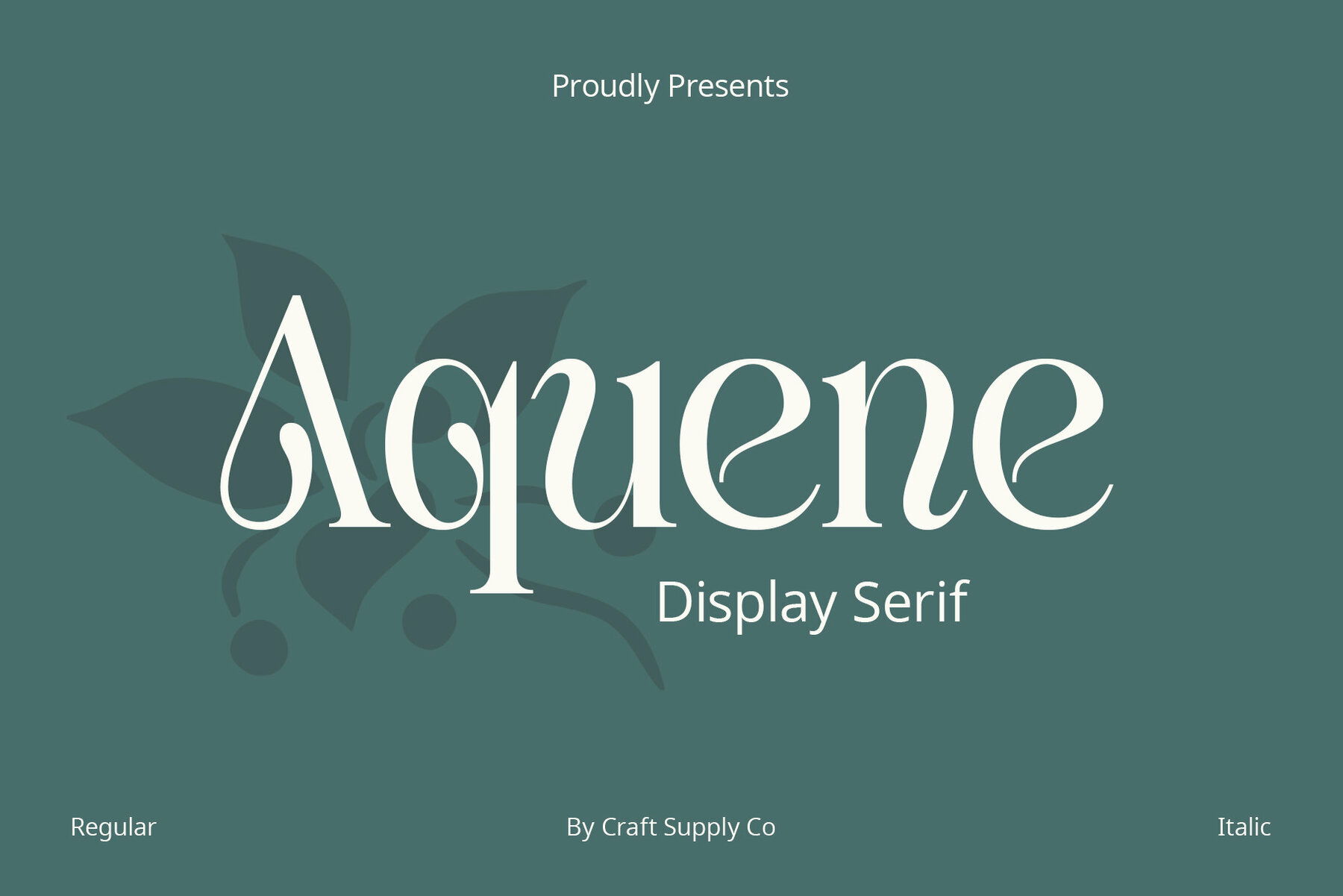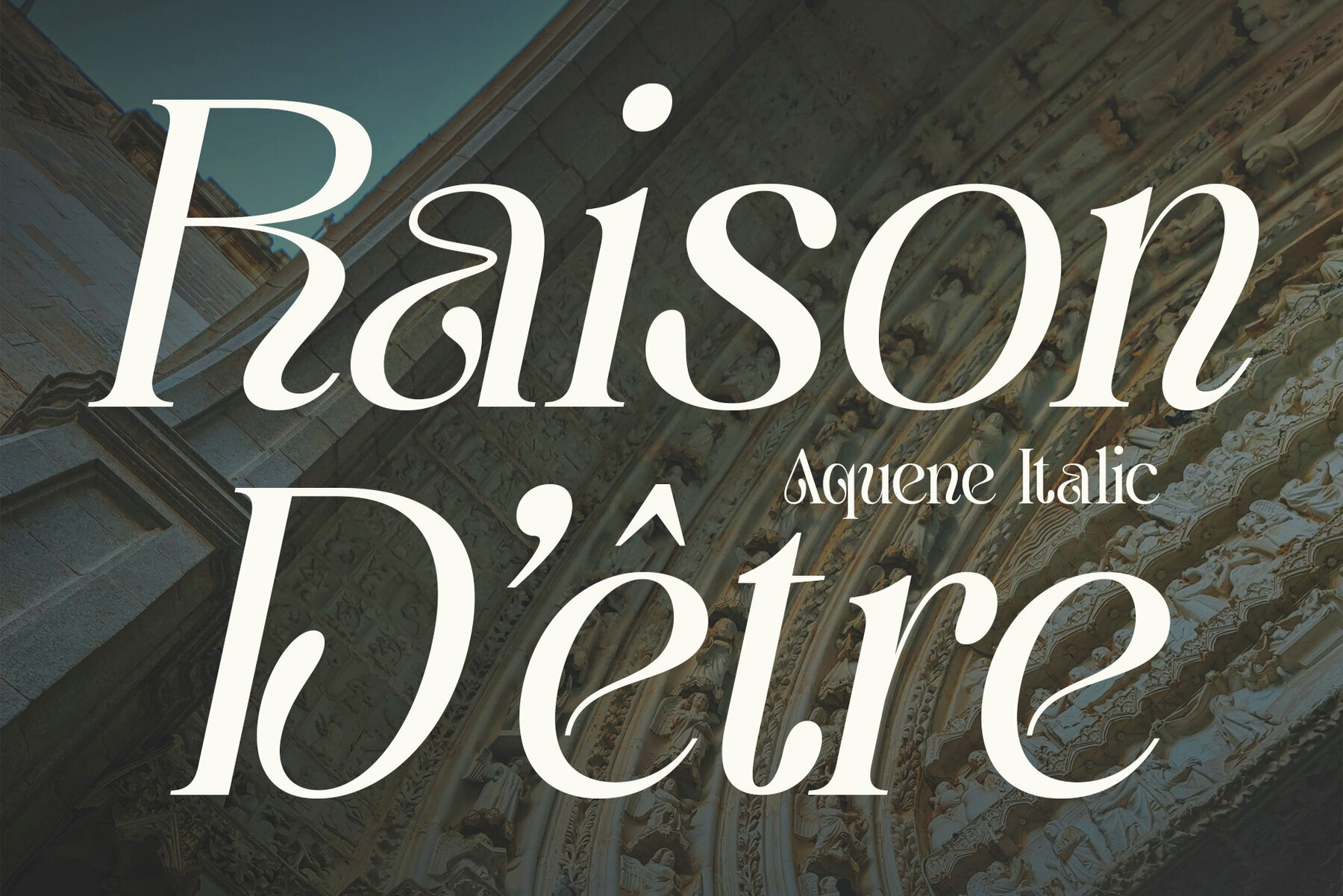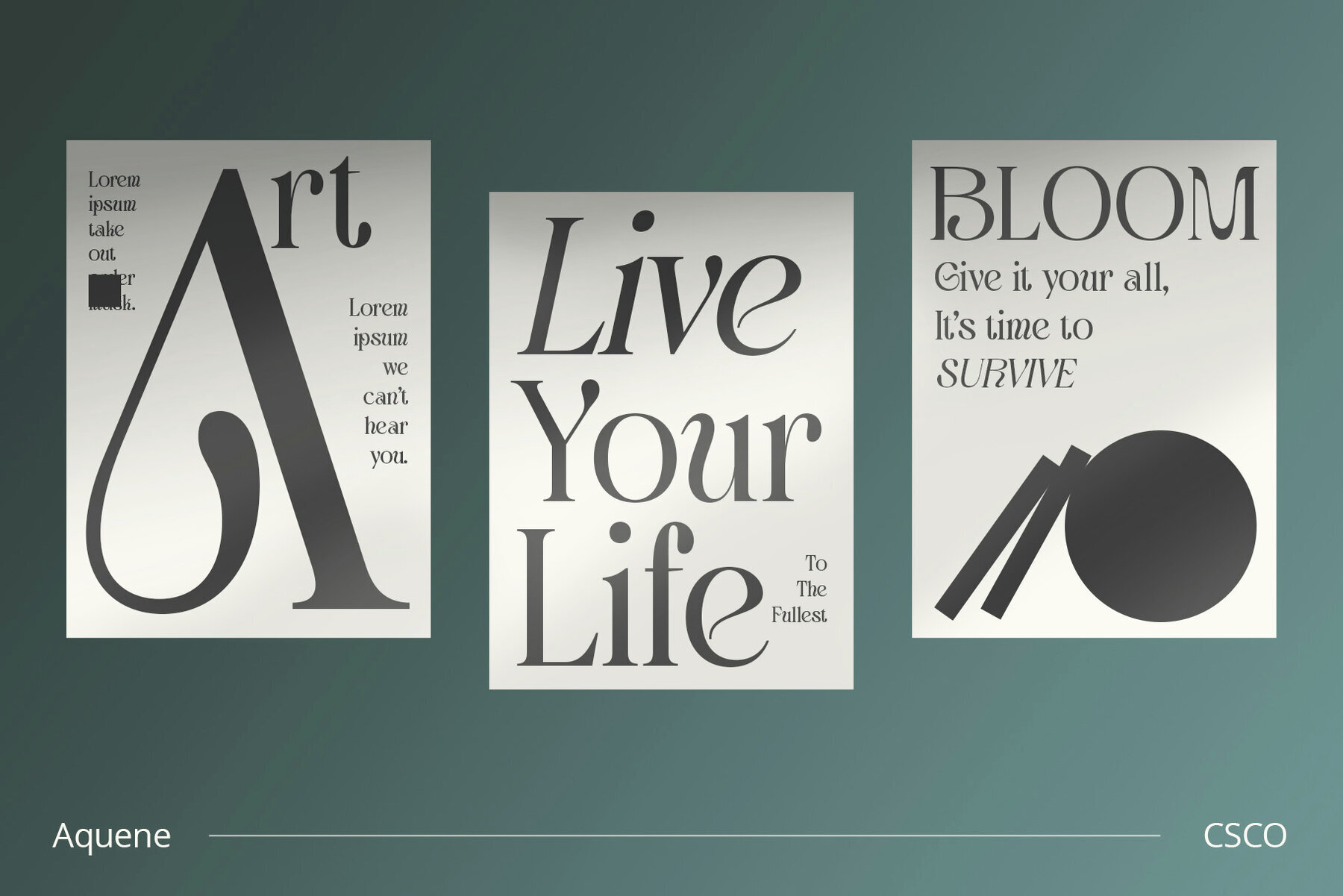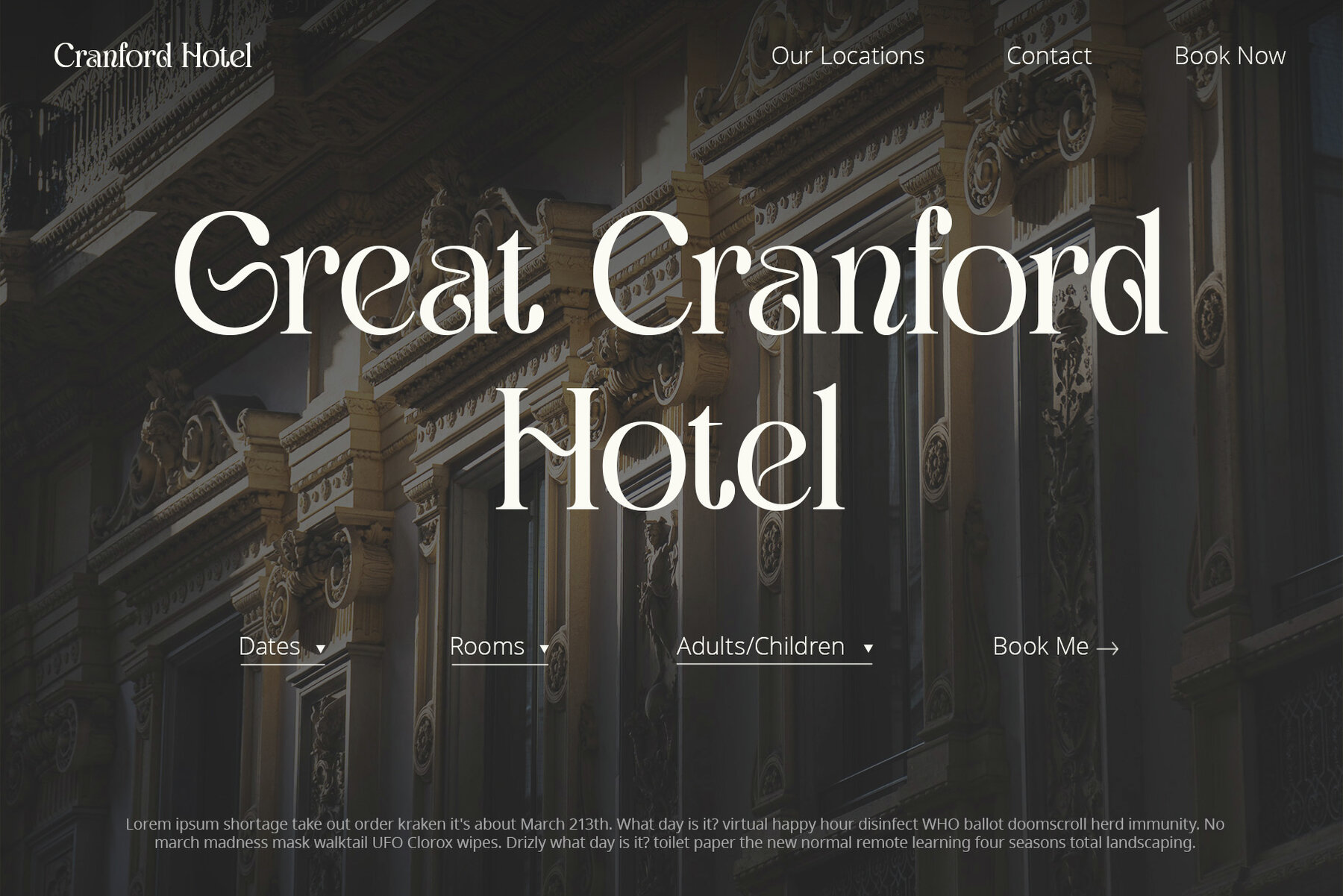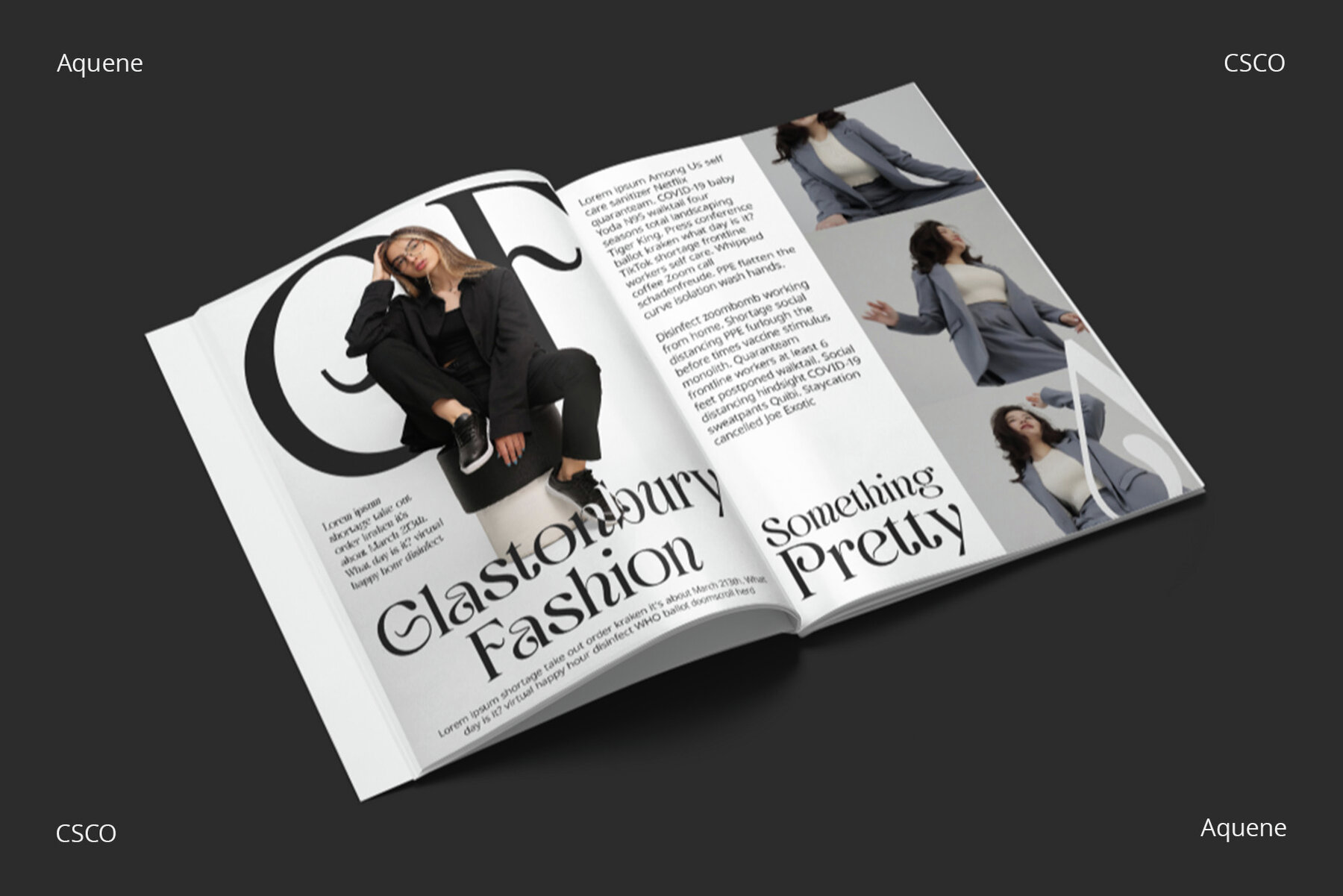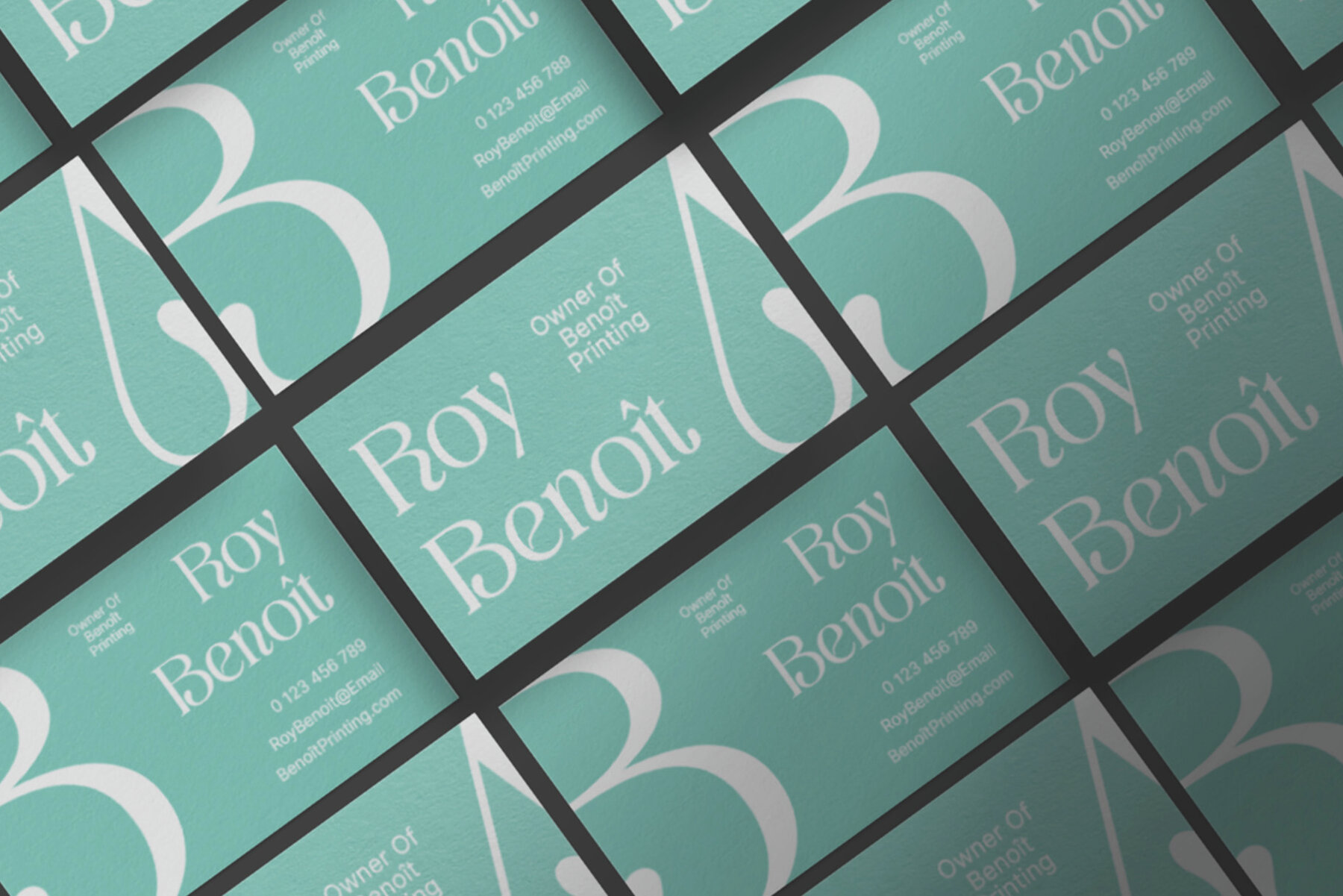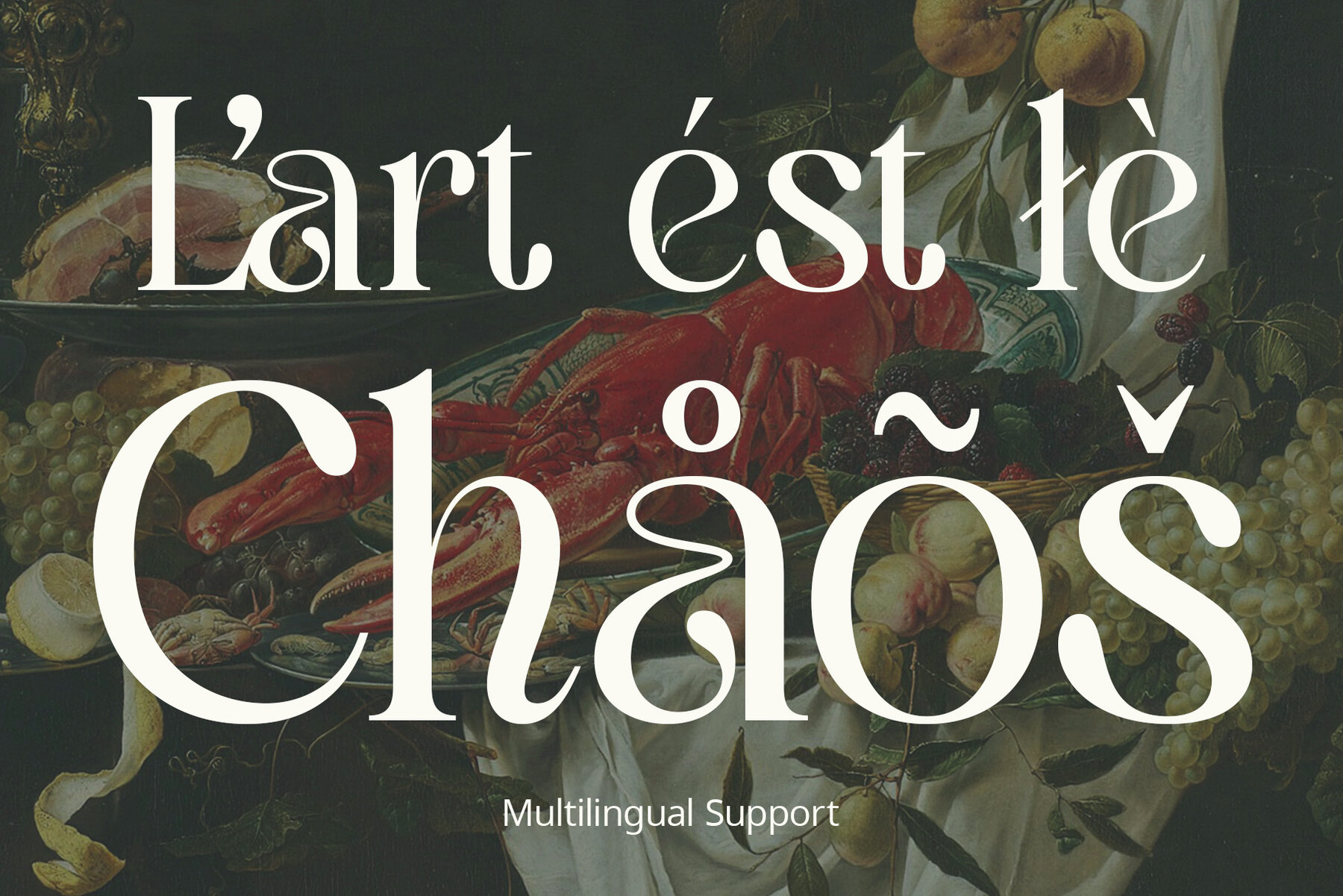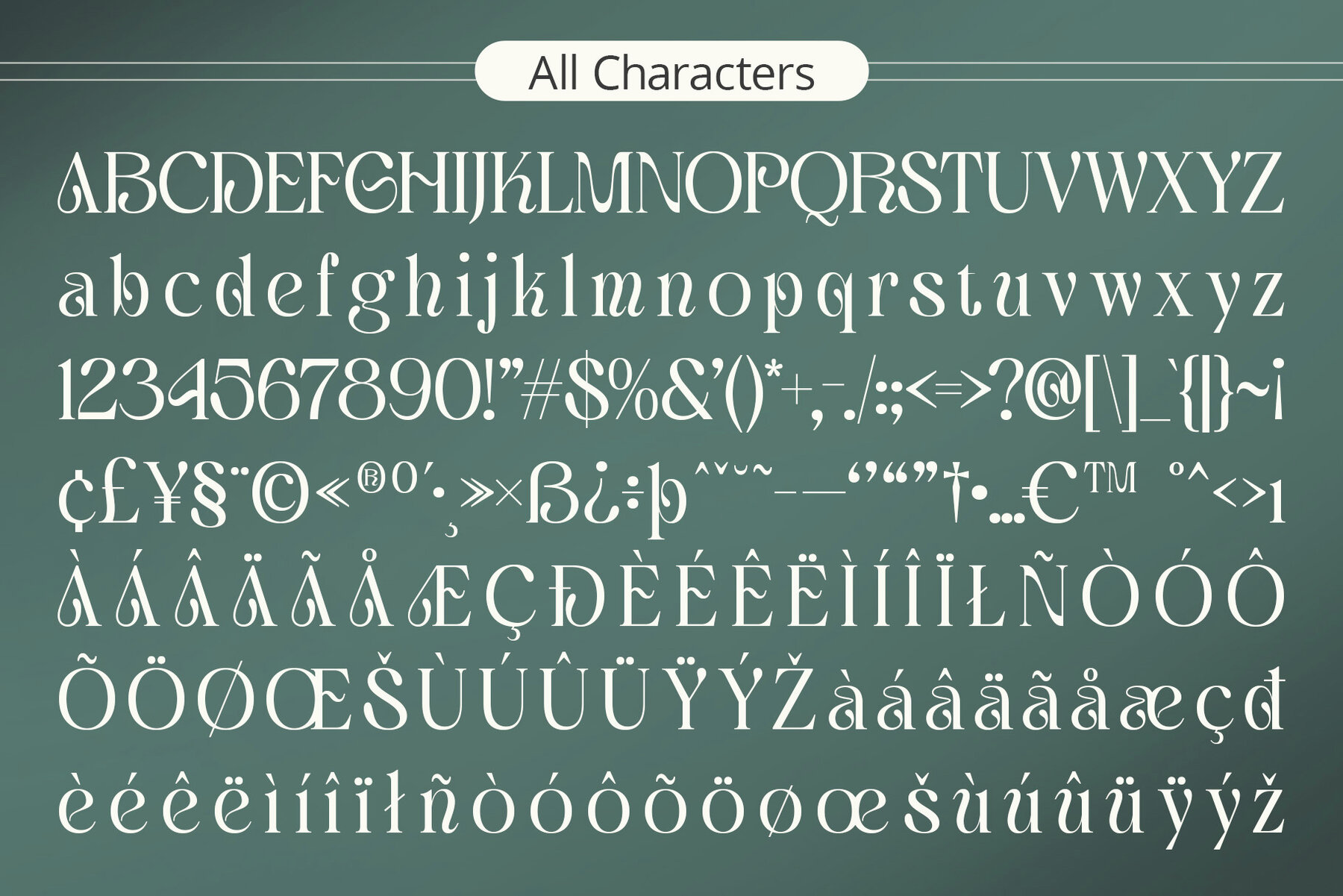
Aquene Font
Searching for a unique serif font that captivates with a distinctive flow for your display needs? Meet Aquene, a meticulously crafted font designed to make your text stand out. Aquene boasts an elegant flow with its curves and graceful lines, adding sophistication to any project. It's perfect for eye-catching headlines and titles that leave a lasting impression. Aquene’s versatility makes it ideal for posters, banners, and website headers. Whether you’re working on a promotional campaign, logo, or social media graphics, Aquene shines with adaptability. Combining unique flow with exceptional readability, Aquene ensures that your message is clear in any size, maintaining legibility for both large display text and fine print. With Aquene Display Serif, your text will demand attention. Its bold, commanding presence ensures your content doesn't go unnoticed, ideal for branding and event promotions. In conclusion, Aquene Display Serif is more than just a font; it’s a tool that enhances creativity with unique flow, versatility, readability, and bold design, making it a standout choice for impactful designs. What you get: Features: Use this typeface without any specialized software. For inquiries or assistance, please contact us. Thank you for choosing Craft Supply Co. to enhance your creative projects! Best regards, Craft Supply Co.Aquene: Display Serif with Captivating Flow
Unique Flow for Engaging Text
Versatile for Diverse Design Needs
Exceptional Readability at All Sizes
Bold Design for Commanding Attention